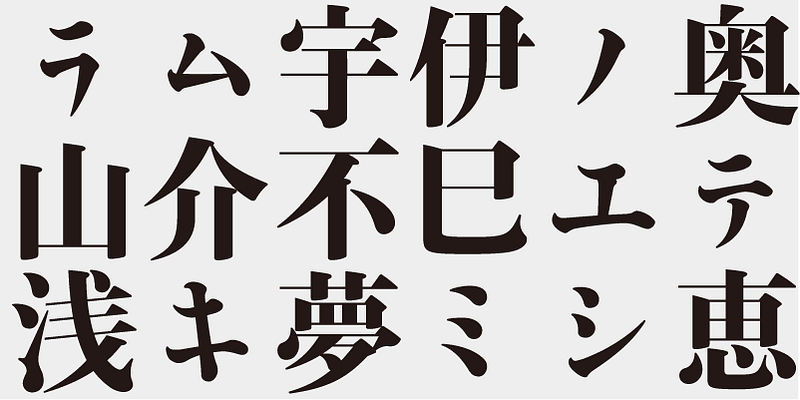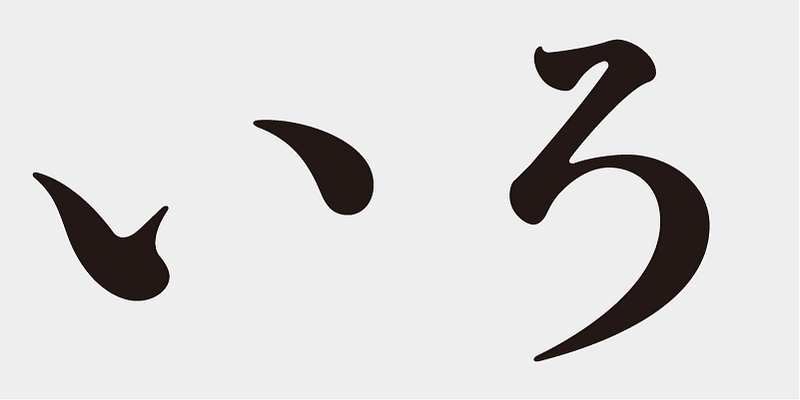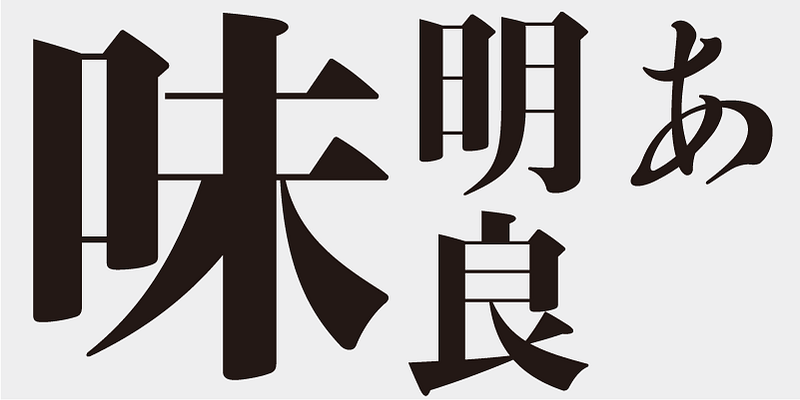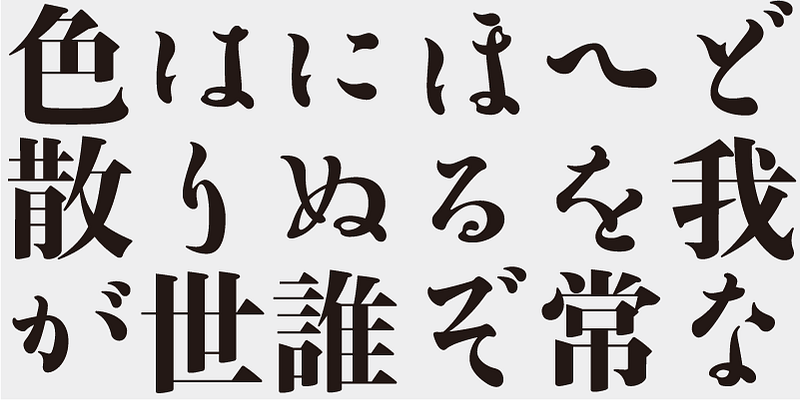
Although Ajimin has the flavor of hot metal type, it is not intended to be a revival, but a new typeface for display purposes. Like Bodoni, its vertical strokes are clear and heavy and its horizontal strokes are precise and thin. Its elements possess strength and stability.
Ajimin Modern’s elements are more sharply designed than those of Ajimin – the start and finish of vertical strokes are lowered for increased sharpness, and the horizontal strokes are cut vertically at the start and are thinner with a uniform width. Ajimin Modern is a sharp and elegant Mincho-style typeface.
This typeface is designed to be used in larger type sizes (for posters, for example), although it’s legible in smaller sizes. As the type size increases, the elegance of each stroke element becomes more visible.
Ryokan was a Zen monk from the late Edo period (1603–1868). He created highly regarded calligraphic works displaying a humane and free-form quality. His calligraphy was based on the tradition of masters such Kaiso (Huaisu) from the Tang Dynasty in China.
The Ryokan family in the Ajioka Shintaro Kana Series is based on the structure of Ryokan’s letter forms. The typeface is characterized by unique, yet authentic, kana character shapes based on the tradition of Japanese calligraphy. However, not all kana characters used today are found in the existing works of Ryokan, because many variations of kana characters (“Hentai-gana”) with different glyph styles were used in those days. So, I designed kana characters by referencing multiple variations from Ryokan’s work. For Ajimin Modern Ryo/EB font, the kana characters of the Ryokan series we redesigned for the first time in thirty years to fit the style of Ajimin.
Ajimin
Ajimin has the flavor of hot metal type and, like Bodoni, its vertical strokes are clear and heavy and its horizontal strokes are precise and thin. Its elements possess strength and stability. Ajimin is a unique Mincho-style display typeface. Ajimin Modern’s elements are more sharply designed, but that sharpness is balanced by the richness and elegance of the design. Ajimin’s biggest feature is its 10 kana variations, ranging from running-hand-like designs, to revivals of designs from the age of hot metal type, to modern style kana. These variations make Ajimin useful for a wide range of purposes.